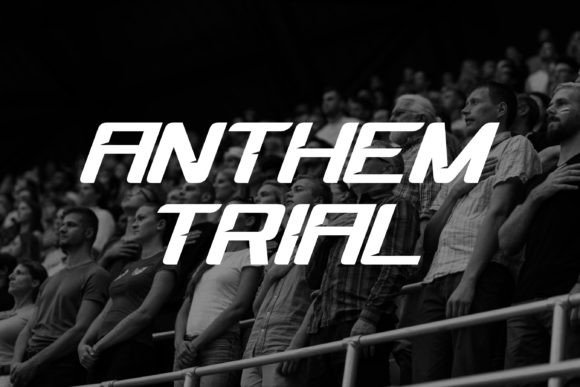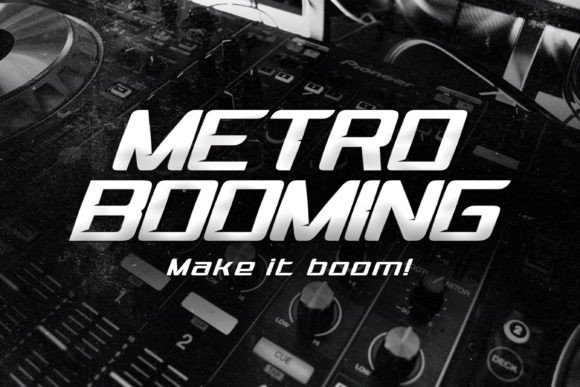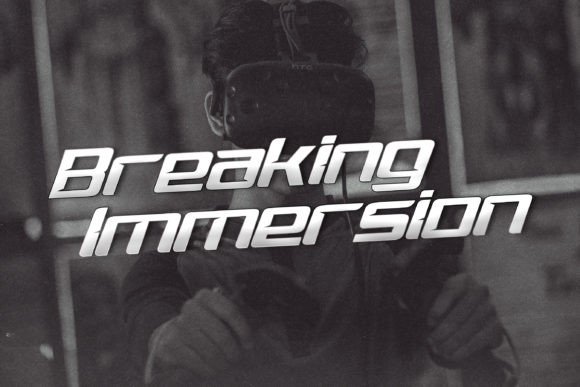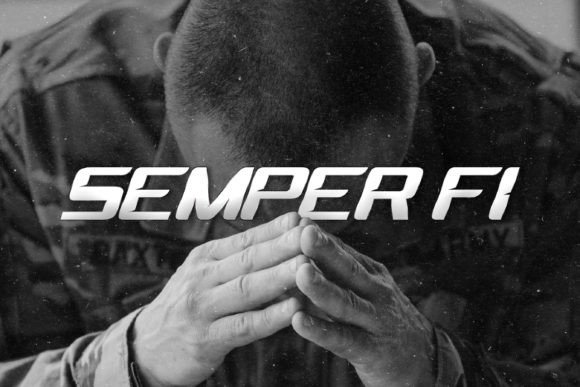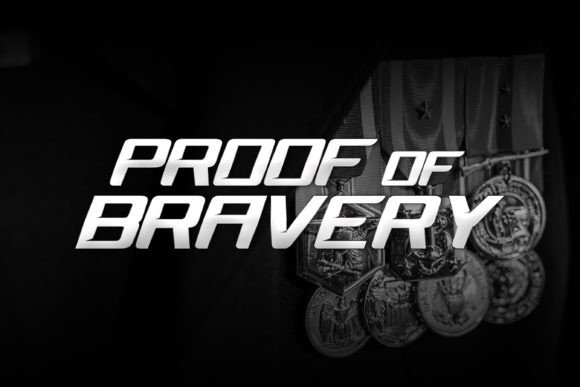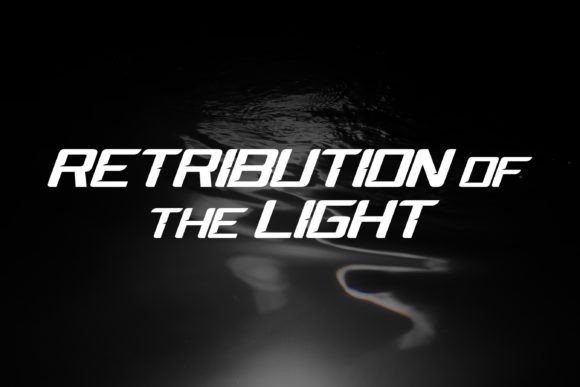
Introduction to Sanford Font
You know that moment when a single font can elevate your entire creative project? For designers, it’s a game-changer. It’s the difference between a bland, unengaging design and a bold, attention-grabbing masterpiece. That’s where the Sanford Font comes in – a modern display sport font that’s about to revolutionize your designs.
Imagine a font that exudes power, strength, and a sense of movement, perfect for sports-related projects or any design that demands attention. The Sanford Font is not just a design resource, but a statement piece that can take your work to the next level. With its clean lines and dynamic energy, this font is ideal for use on a transparent background, allowing your message to shine through.
Key Features of Sanford Font
- High-quality font design ideal for creative projects
Honest Review: Sanford Font
As a designer, I’m always on the lookout for high-quality design resources that can elevate my creative projects. Recently, I had the chance to work with the Sanford Font, and I must say it’s been a game-changer. ✨
One of the standout features of this font is its versatility. It’s perfect for both digital and print projects, and its clean, modern design makes it ideal for a wide range of applications. The font also comes with a transparent background, making it easy to layer and customize.
Some of the key benefits of the Sanford Font include:
- Transparent background for easy layering and customization
While the Sanford Font is an excellent design resource, there are a few limitations to be aware of: ⚠️
- The font may not be suitable for very small text sizes due to its thin strokes
- Some users may find the font’s modern design too minimalist for their taste
Overall, I’m thoroughly impressed with the Sanford Font. Its high quality, versatility, and free download make it an excellent addition to any designer’s toolkit. If you’re looking for a reliable and stylish font for your creative projects, I highly recommend giving it a try.
Tips for Getting the Most Out of Sanford Font
– Use the Sanford Font on a transparent background to create a clean and minimalist design.
– Experiment with different font sizes and colors to create visual interest.
– Use the Sanford Font in combination with other design elements, such as images and shapes, to create a unique design.
Common Use Cases for Sanford Font
– Graphic design projects, such as business cards and brochures.
– Digital art projects, such as illustrations and animations.
– Web design projects, such as website headers and footers.
Alternatives to Sanford Font
Open Sans is a popular, high-quality sans-serif font suitable for a wide range of creative projects. Its clean design and versatility make it an ideal choice for applications with a transparent background. It’s available for free download and is widely used in digital design. Open Sans is a great alternative to Sanford Font for designers who want a modern, professional look.